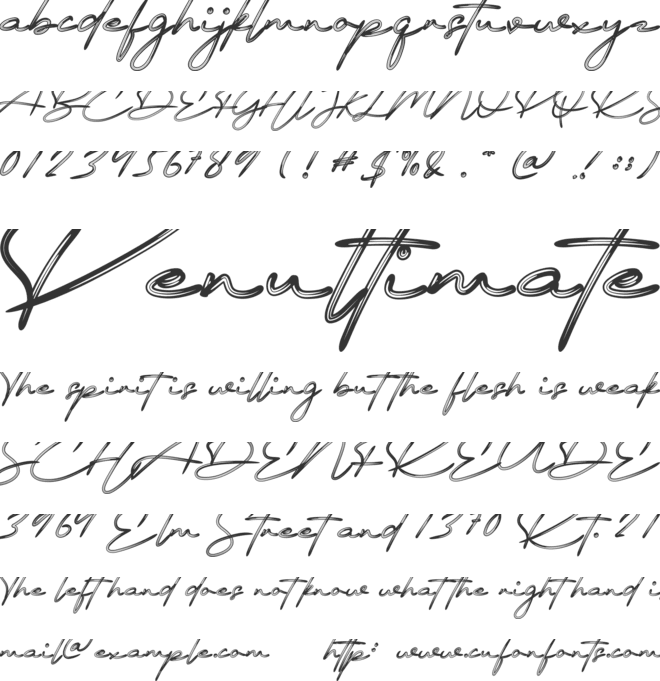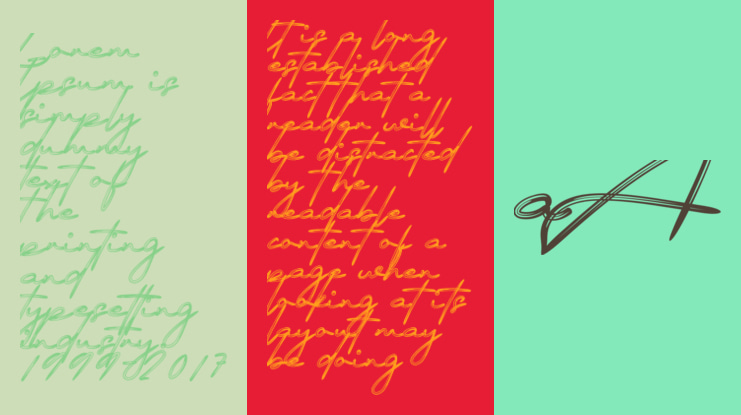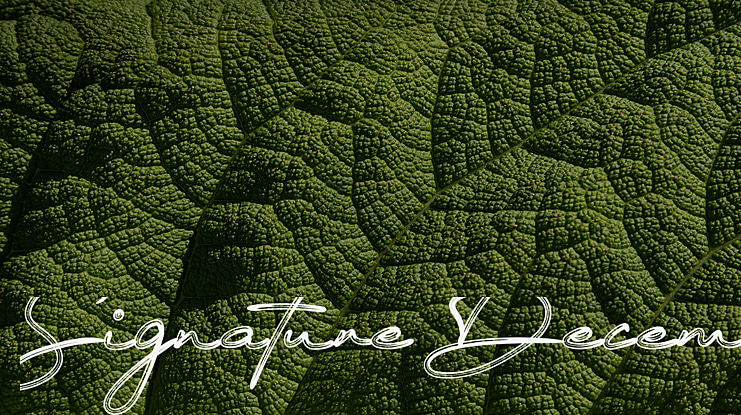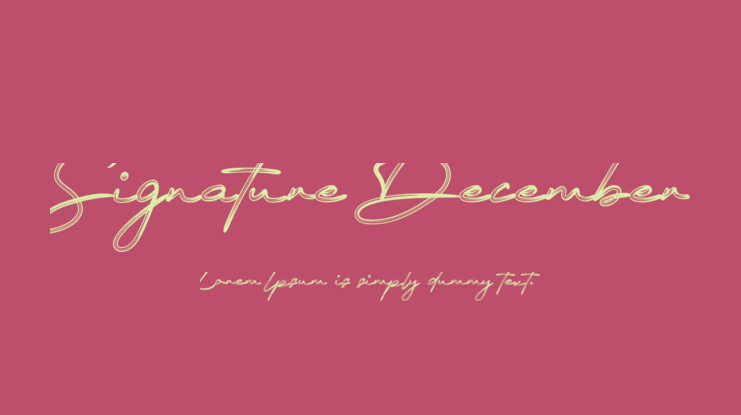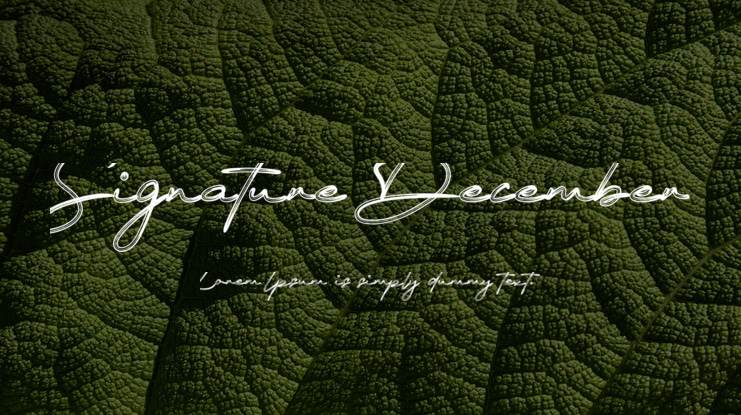
Signature December Font
DETAILS special creative products for you, our products will give you an extraordinary experience.
the latest style letters are perfect for wall displays, wedding invitations, social media post logos, advertisements, product packaging, product designs, labels, photography, watermarks, invitations, stationery, and any project that requires taste handwriting.